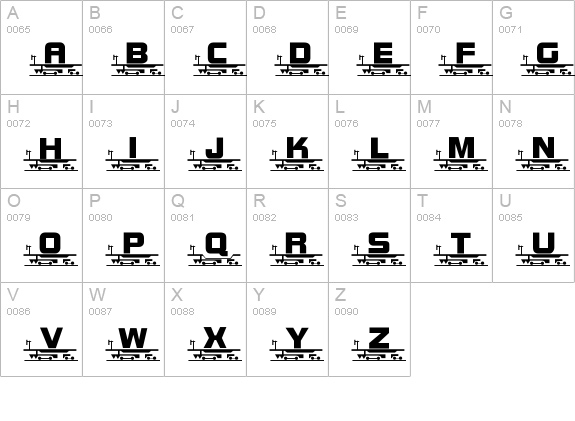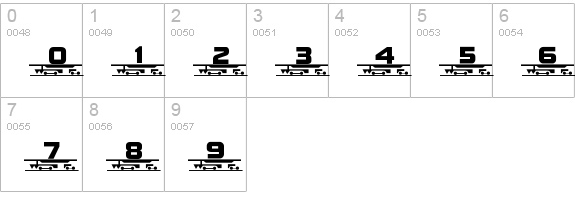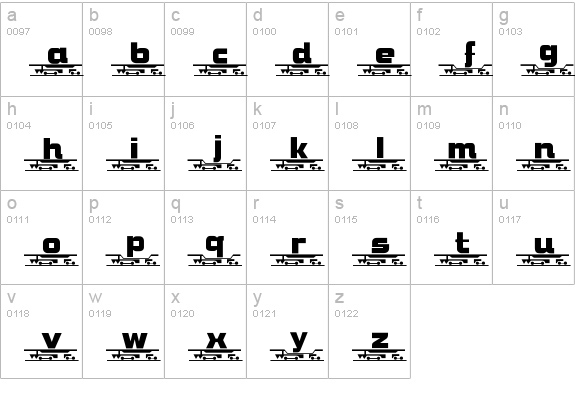
TQF_WordTrain Font Details
Introducing TQF_WordTrain, a captivating and versatile font that is sure to inspire creativity in your design projects. This font exudes a sense of elegance and sophistication, making it perfect for a wide range of applications, from branding and advertising to invitations and social media posts. TQF_WordTrain is characterized by its clean lines, balanced proportions, and exquisite attention to detail. Its carefully crafted letterforms are both modern and timeless, ensuring that your designs will stand out from the crowd. Whether you're looking to create a sleek logo or add a touch of refinement to your typography, TQF_WordTrain is the ideal choice. The best part? TQF_WordTrain is completely free! That's right, this remarkable font is freely available to download at FontsMarket.com. With just a few clicks, you can enhance your design projects with this remarkable typeface, without spending a dime. Embrace the freedom to express your creativity and take your designs to new heights with TQF_WordTrain. So why wait? Download TQF_WordTrain today and unlock a world of design possibilities. Whether you're a professional graphic designer or a hobbyist looking to add a touch of flair to your personal projects, this font is sure to become a valuable asset in your creative toolkit. Don't miss out on the opportunity to elevate your designs with TQF_WordTrain – the font that combines style, versatility, and the freedom of being completely free.